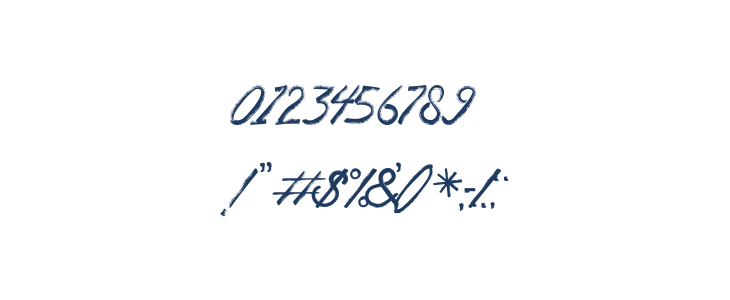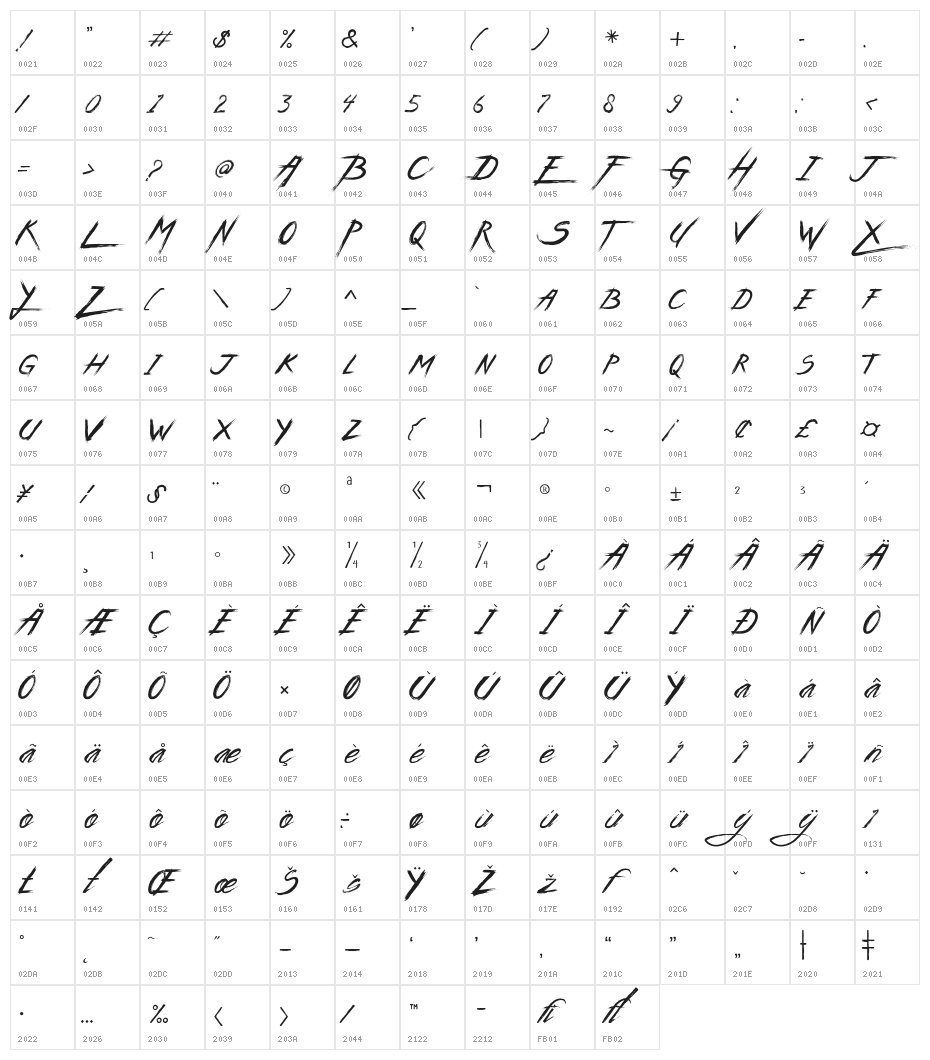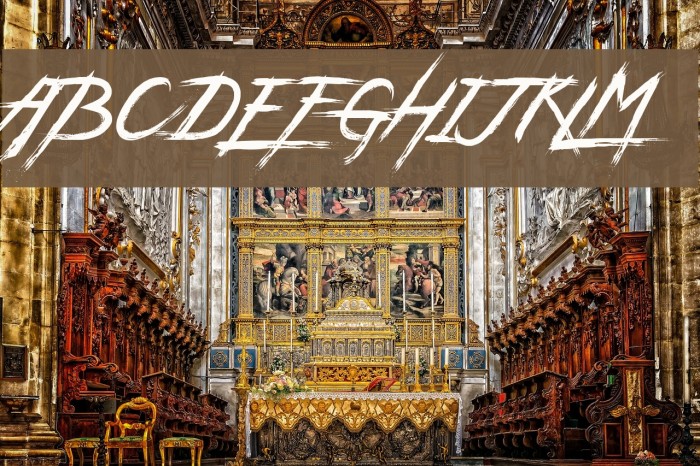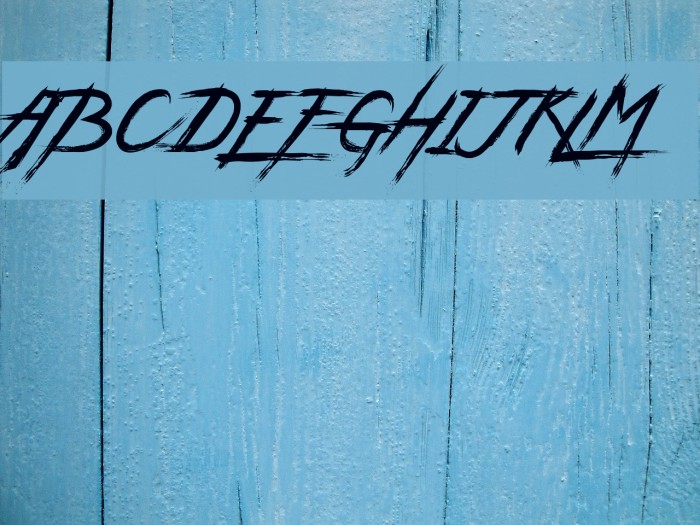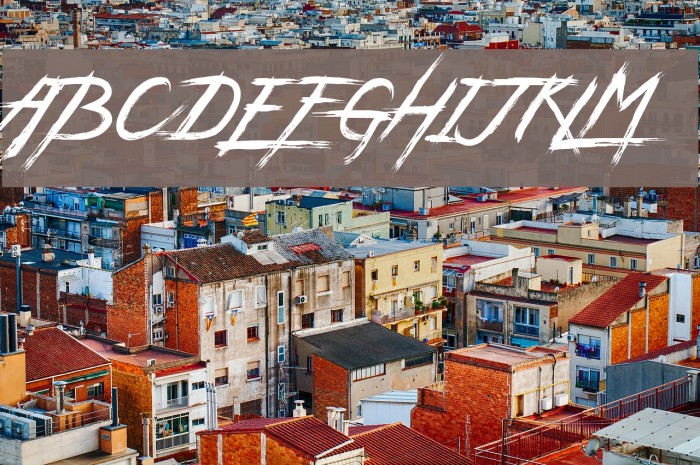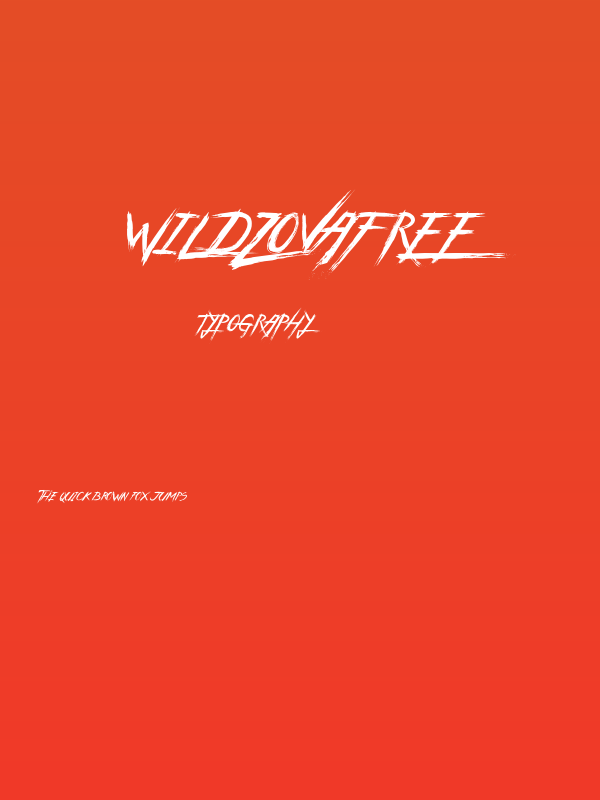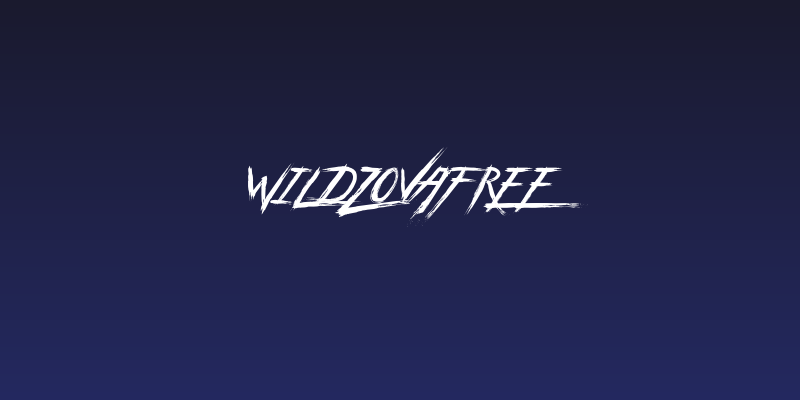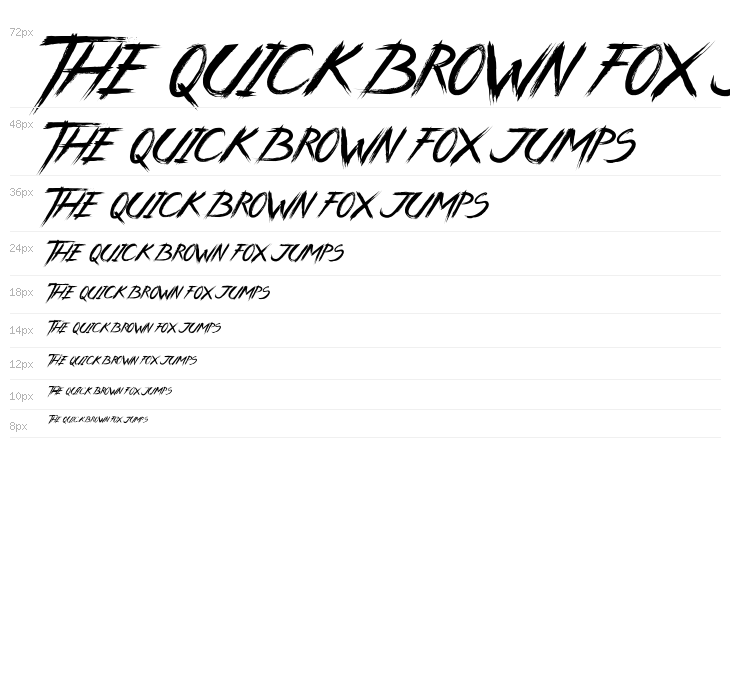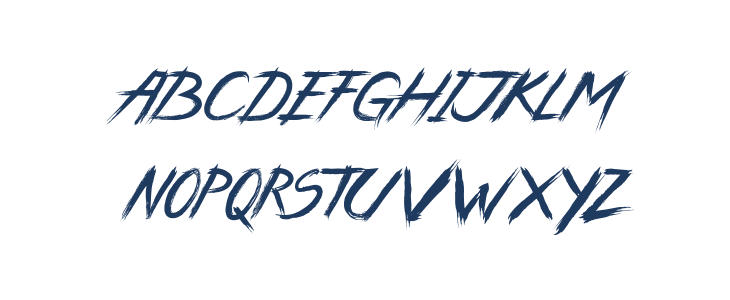
WildZovaFree Font
WildZovaFree Description
This font exudes a wild, energetic vibe with its sharp, angular strokes and dynamic, brush-like appearance. The characters are bold and expressive, with a sense of movement that suggests speed and intensity. The uppercase and lowercase letters maintain a consistent style, characterized by their jagged edges and irregular forms, which add to the font's rebellious and edgy feel. The numerals and special characters follow the same design principles, ensuring a cohesive look across all elements. This font is ideal for projects that require a bold statement or a sense of urgency and excitement.
| Overall Style | Modern, Edgy |
| Proposed Projects | Ideal for music album covers, sports branding, action movie posters, or any project needing a bold, energetic statement. |